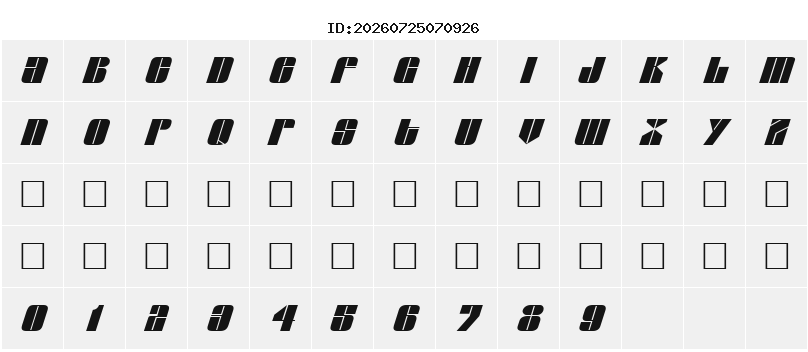
GlaserItalic Preview
• Font Name: GlaserItalic
• Full Font Name: GlaserItalic
• PostScript Name: GlaserItalic
• Character Count: 56
About GlaserItalic.ttf
GlaserItalic.ttf is a modern, elegant sans-serif font designed for ultimate readability and visual harmony. Perfect for branding, headlines, web design, and print materials.